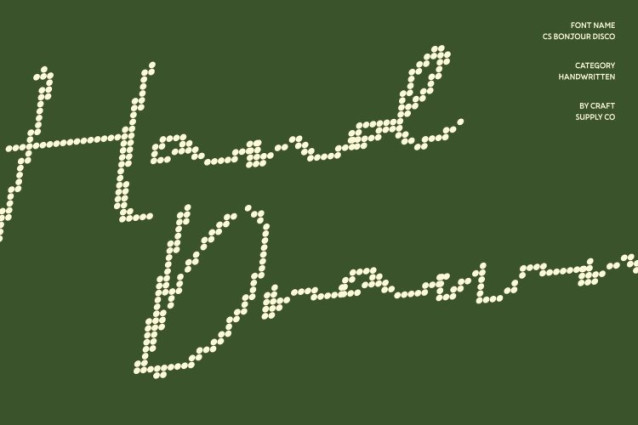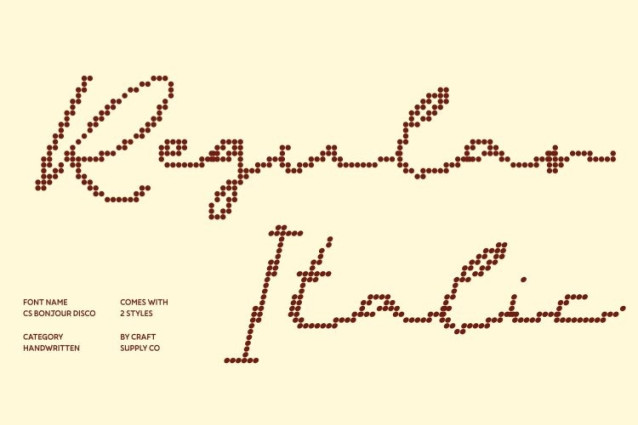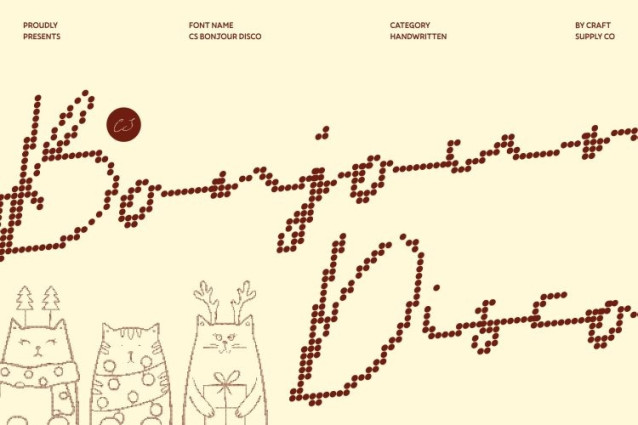
CS Bonjour Disco Font
CS Bonjour Disco Font This is a personal signature script font inspired by the fluid elegance of real handwritten signatures, enriched with a subtle disco-era charm. Its smooth, confident strokes create a refined handcrafted look that feels both professional and intimate. With natural flow and graceful movement, this font brings warmth, personality, and understated glamour to any visual identity.
Graceful Lines with Luxurious Retro Rhythm
Crafted with delicate curves and expressive pen-like strokes, this font delivers a luxurious handwritten aesthetic that blends timeless beauty with 70s early 80s sophistication. Subtle variations and organic rhythm make each letter feel genuinely written, adding depth, authenticity, and stylish confidence to every composition.
Perfect for Logos and Premium Branding
This font excels in branding where individuality and luxury are essential. Its signature-style construction enhances logos, taglines, and brand marks with personal elegance and prestige. Ideal for fashion labels, beauty brands, boutique businesses, and lifestyle creators, this font communicates confidence, exclusivity, and refined character.
Ideal for Luxury Invitations and Elegant Print Designs
From wedding invitations to exclusive event stationery, adds emotional warmth and sophisticated flair. Its graceful script delivers a memorable, handcrafted impression making every design feel personal, stylish, and beautifully elevated with a subtle disco-era glow.